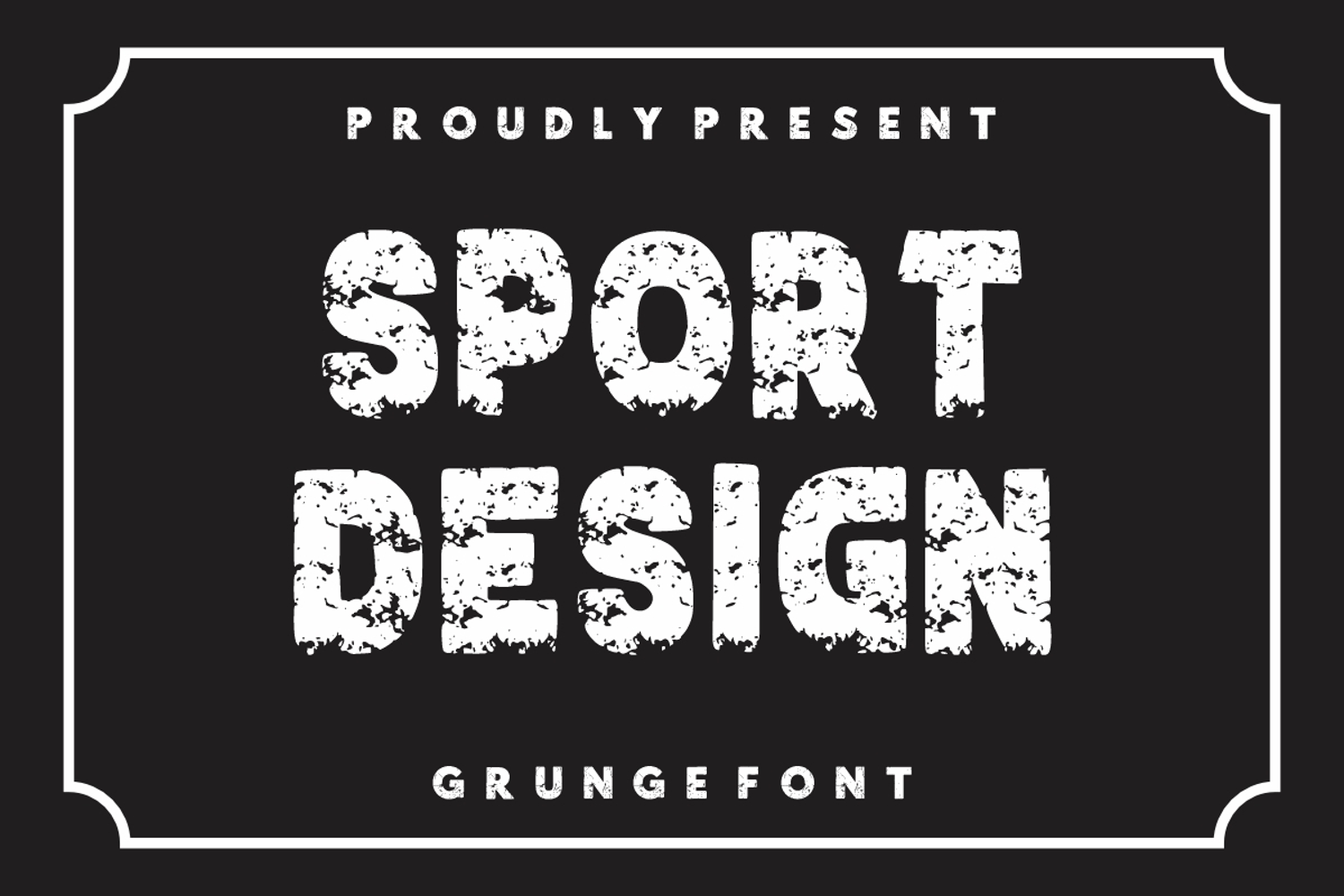
Sport Design
Sport Design is a Vintage, cool, grunge bold display font perfect for various projects such as blog posts, logos, branding, ads, invitations, greeting cards, planners, photo albums, decorations, and much more.
Sport Design